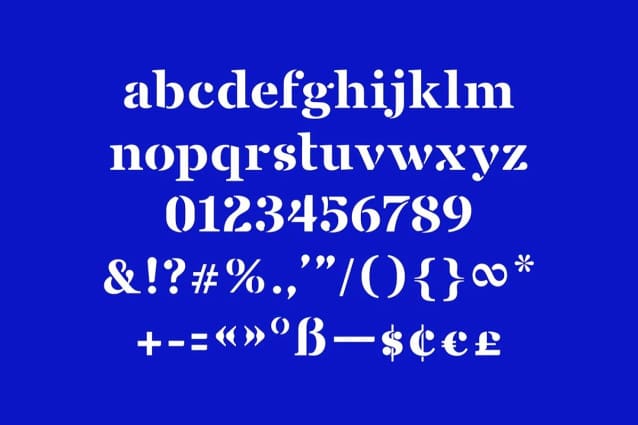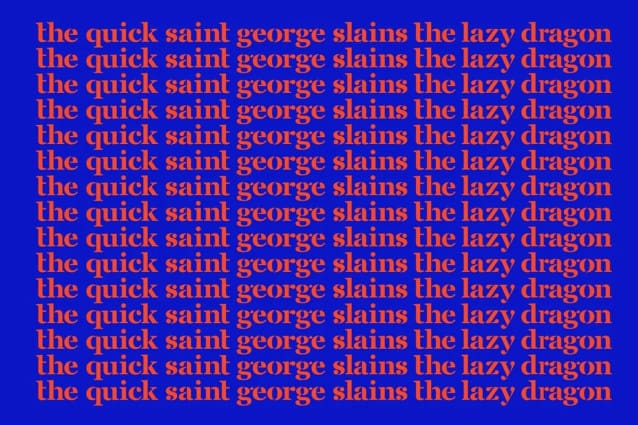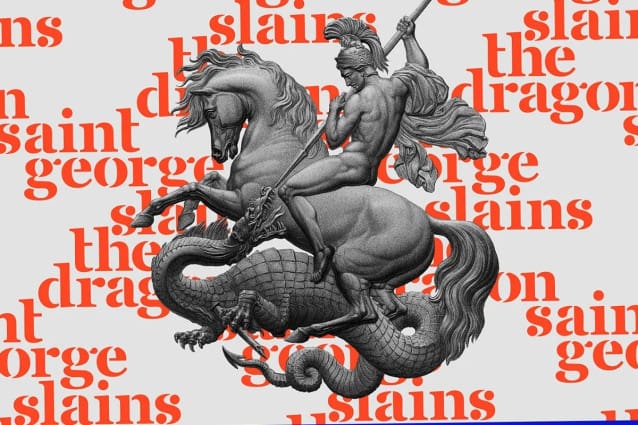
Saint George Font
Saint George Font, perfectly fit for branding, logo, wedding things, greeting cards, fashion, lookbook, marketing promotion, anytime you want to look fancy elegant but still casual.